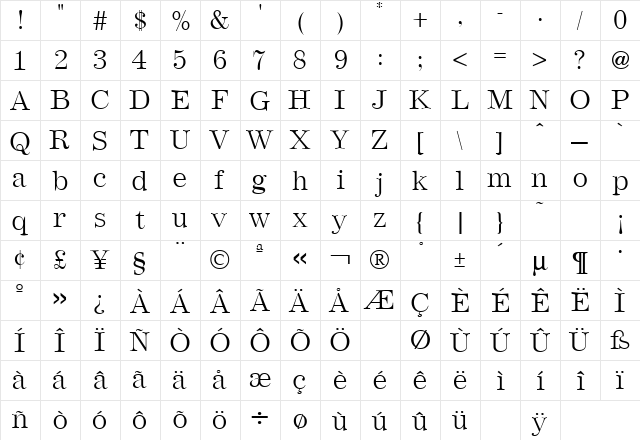
Andrich Regular
Design Context for Andrich Typeface
Andrich offers clean, dependable letterforms without strong stylistic allegiance, making it a practical choice for designers who need flexibility.
Pro Tip: Use Andrich in both headline and body roles to test its range before committing to a single application.